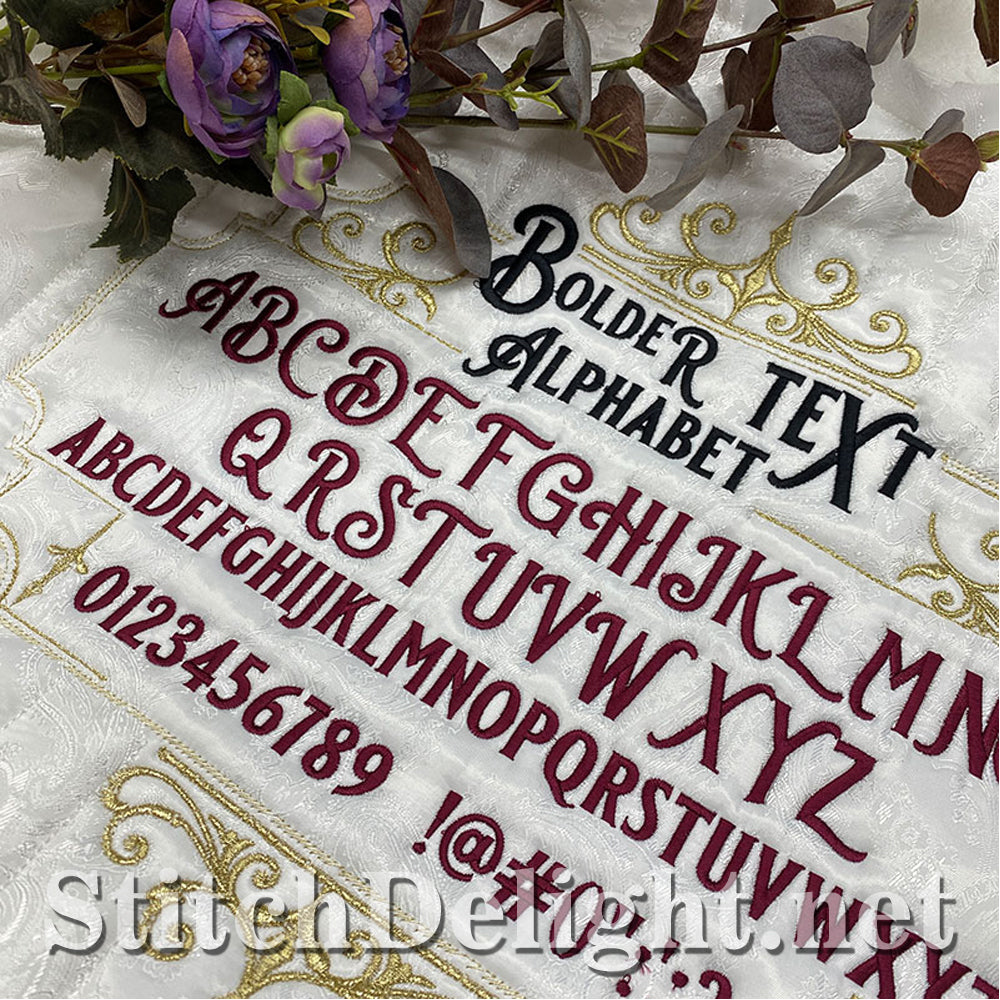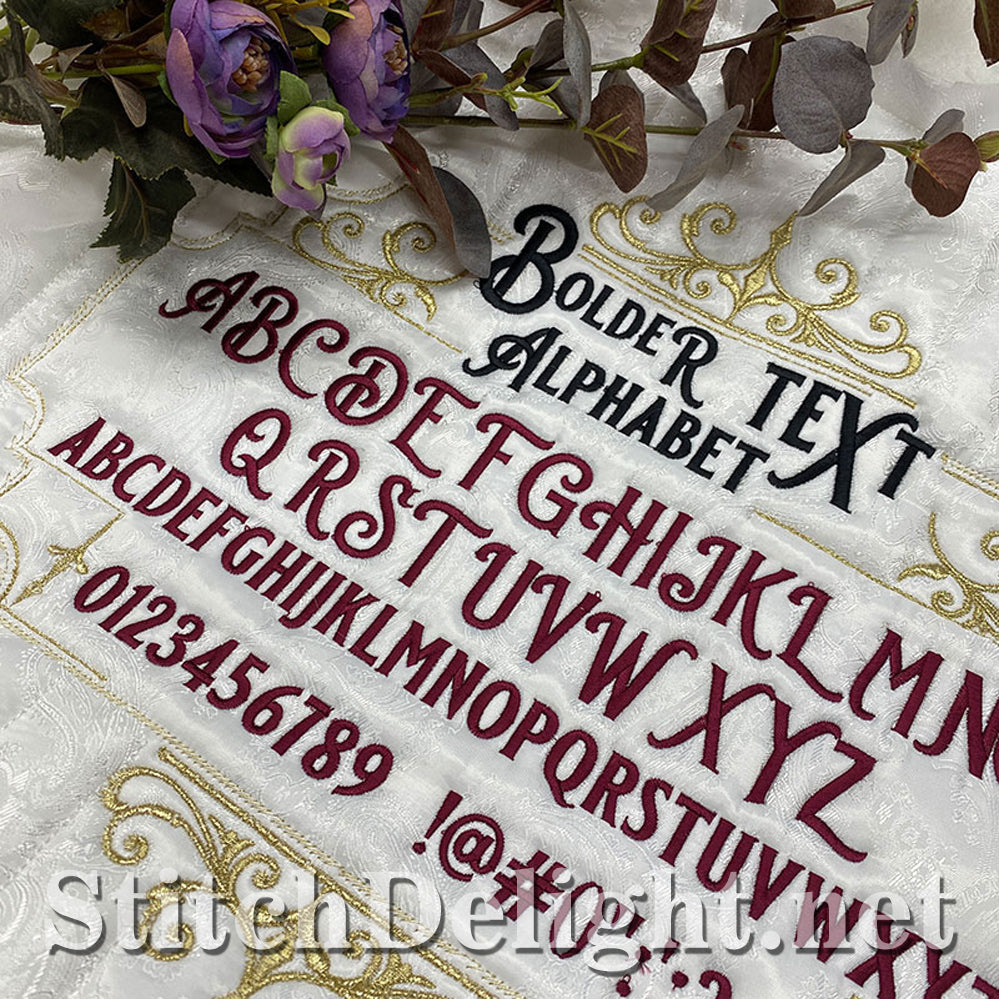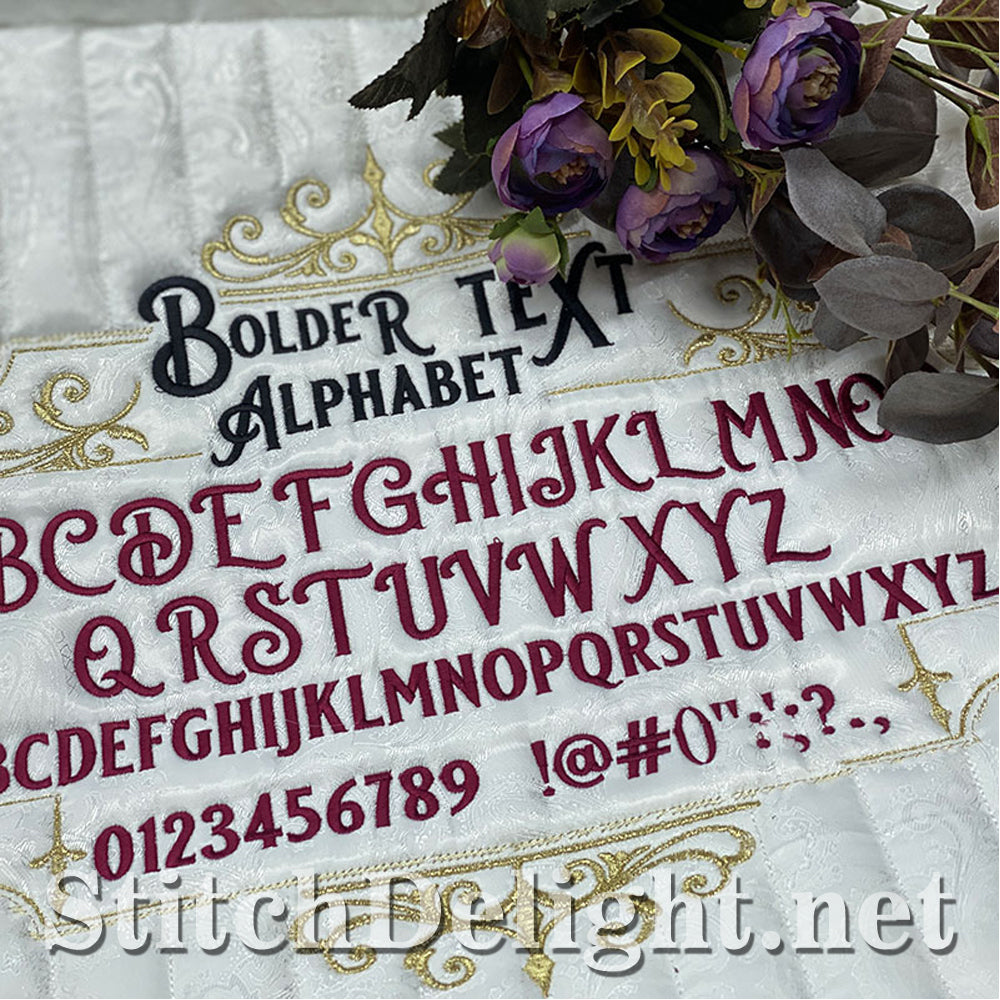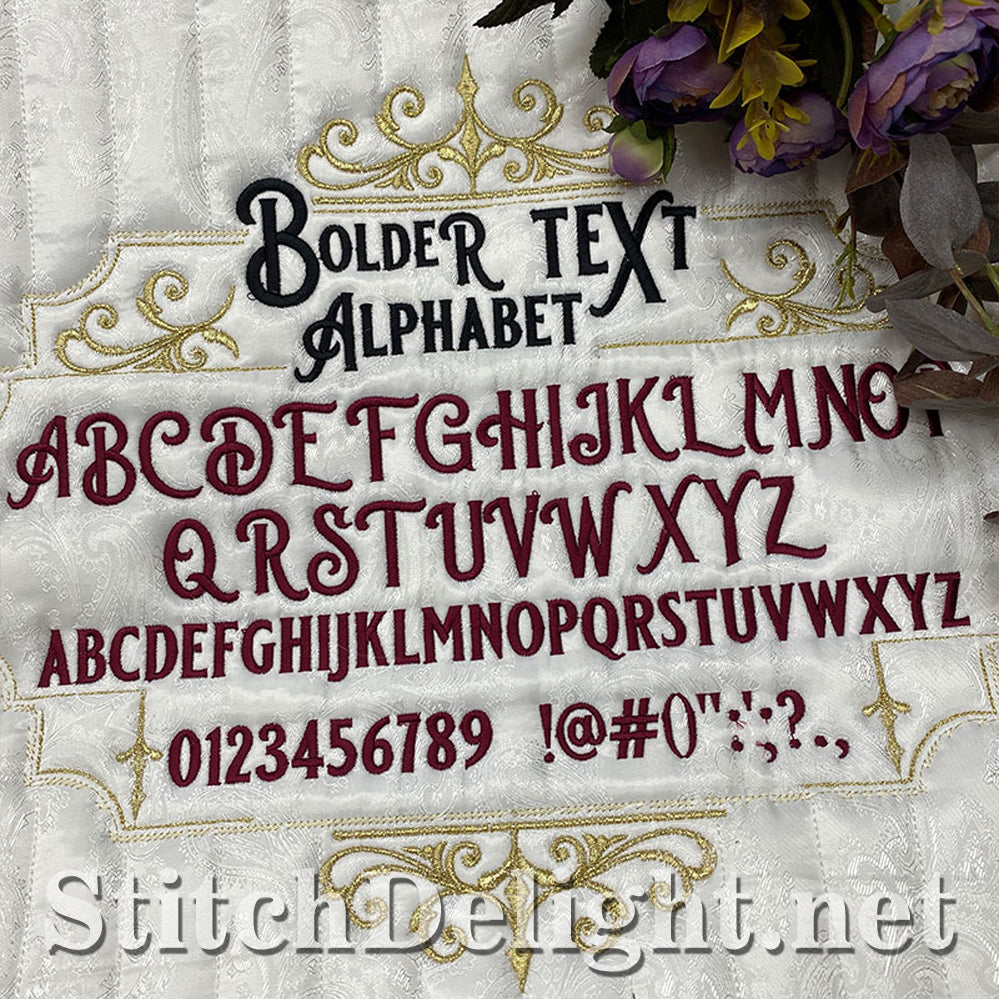
This font is simply a must have! It reminds me of old Shop signs from the 1900's, the kind that has so much detail to admire you can easily spend an hour just looking at the sign! This font has an average height of 1.1" on the font and 0.7 on the numbers. Also included with this set is special characters along with the popular BX format making it super easy to type out when used with Embrilliance software.